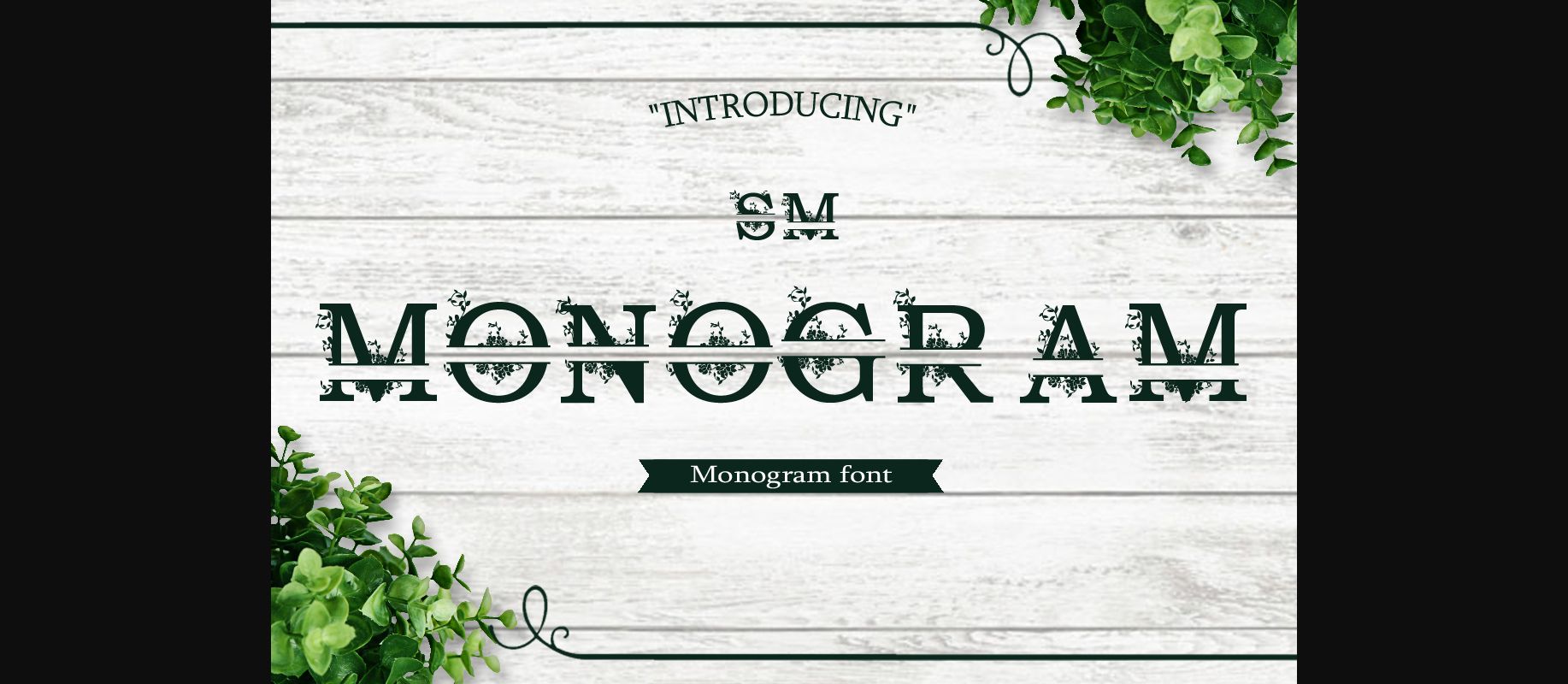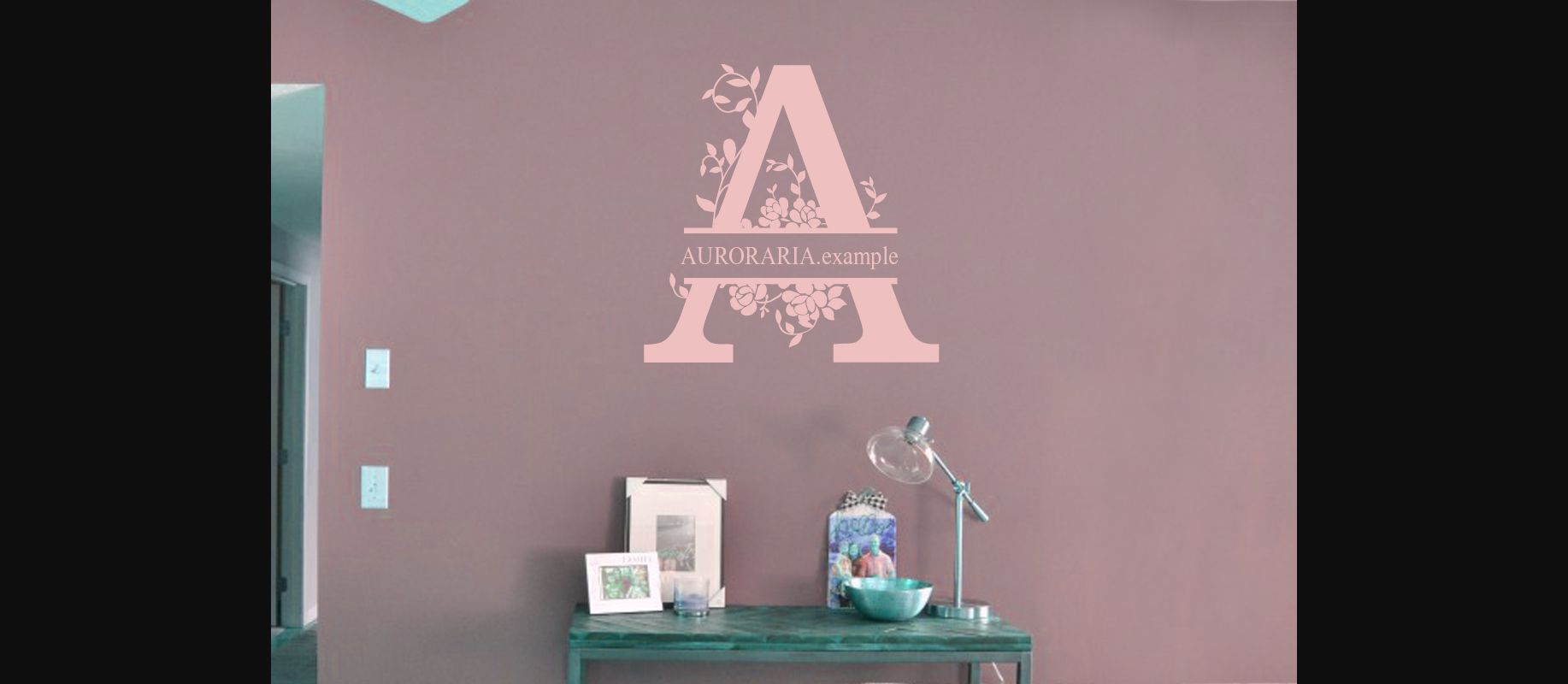
About SM Monogram Font
SM Monogram is a beautiful decorative font with a floral theme. Use it for any design project that requires a charming appearance!